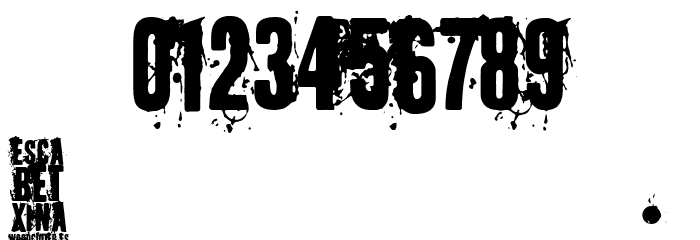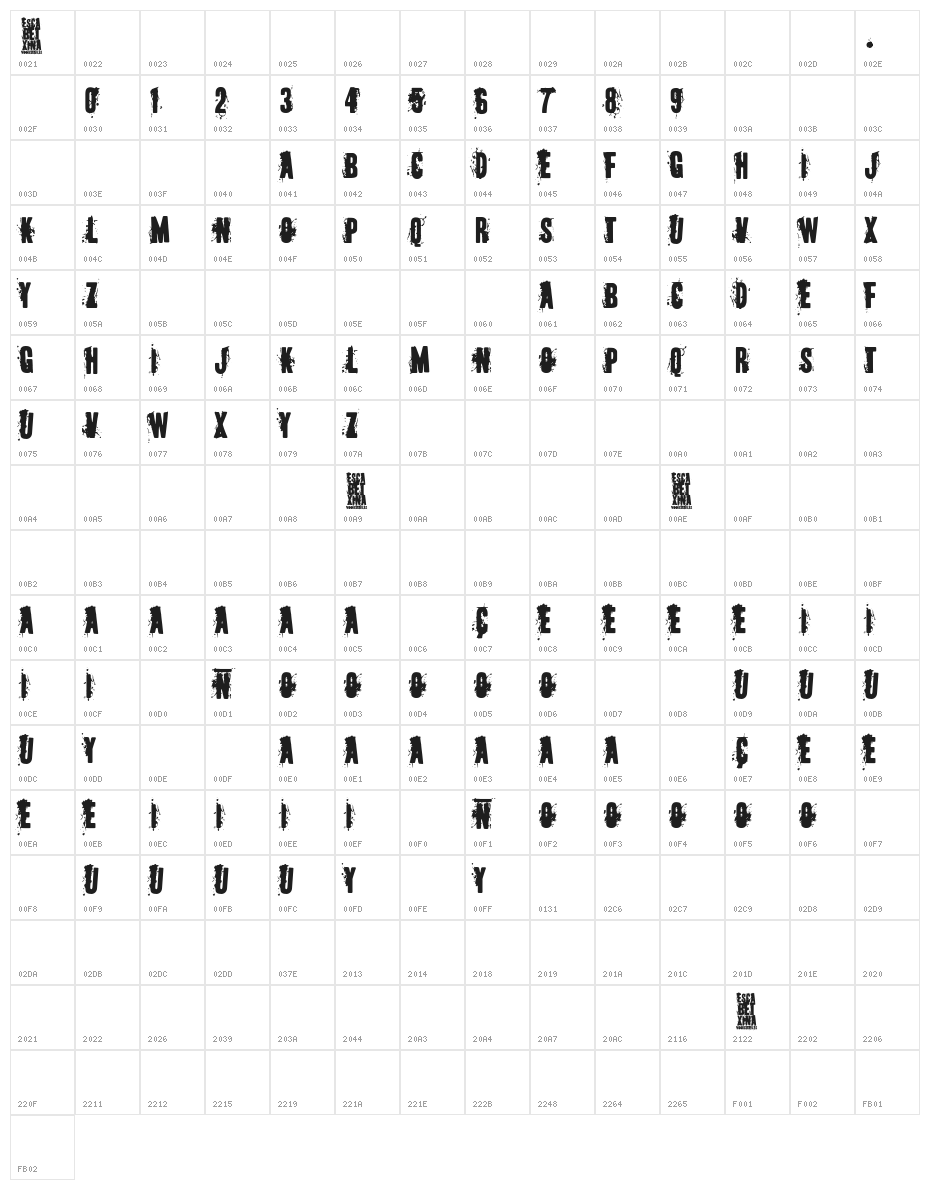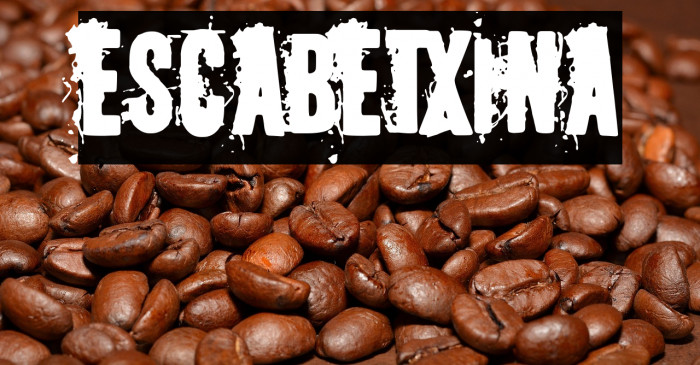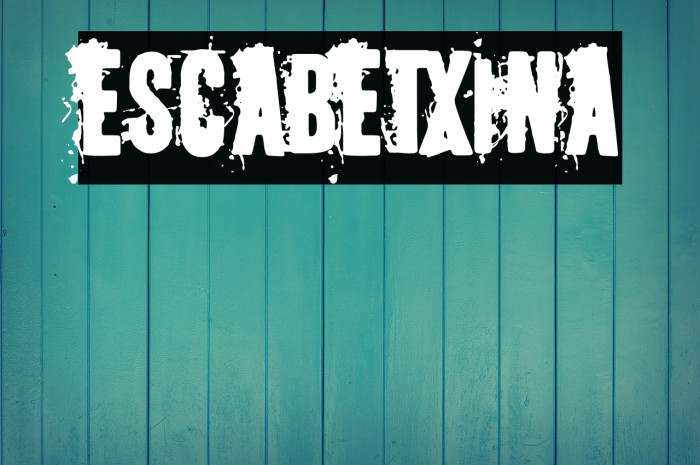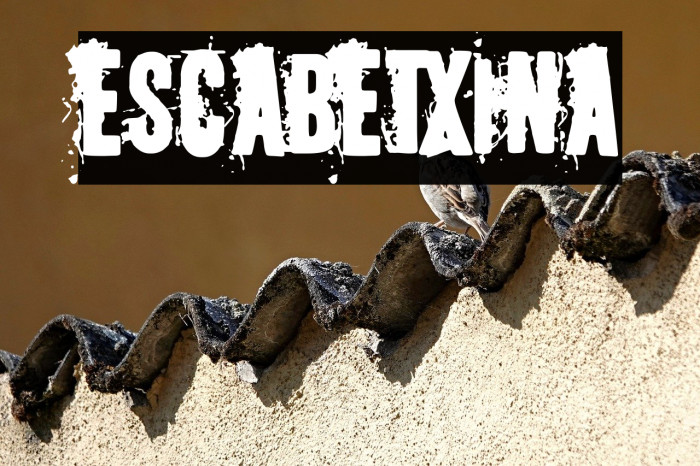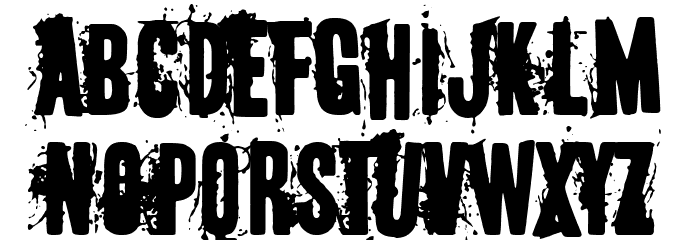
Escabetxina Font
Escabetxina Description
This font features a bold and distressed style, characterized by splatters and irregular edges that give it a grunge and urban feel. The uppercase and lowercase letters maintain a consistent height, with each character appearing as if it has been splashed with ink or paint. The numbers and special characters follow the same design, ensuring a cohesive look throughout. This font's rugged appearance makes it stand out, ideal for projects that require a strong and edgy aesthetic.
| Overall Style | Grunge, Urban, Edgy |
| Proposed Projects | Ideal for music album covers, streetwear branding, graffiti art, and event posters. |